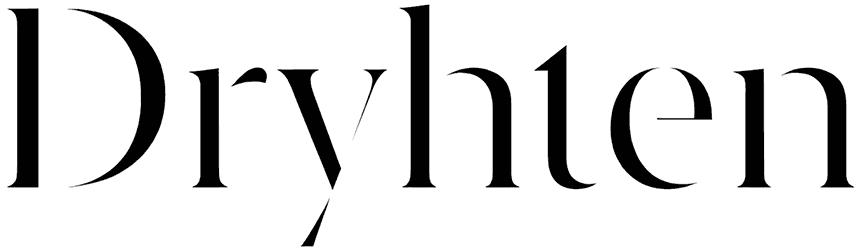
Dryhten Font
For your writing to be continuously up-to-date, attract all fancies, and of course, to be comfortable and accessible, do you have a better offer than a business card font?
Completely neoclassical, while its elegant serifs are not hidden from the eyes of designers, its faded lines take us to the modern world and evoke a futuristic ambiance. This Dryhten font works perfectly with all the available alphabets for the covers of fashion magazines, cosmetics product packaging, and brands.